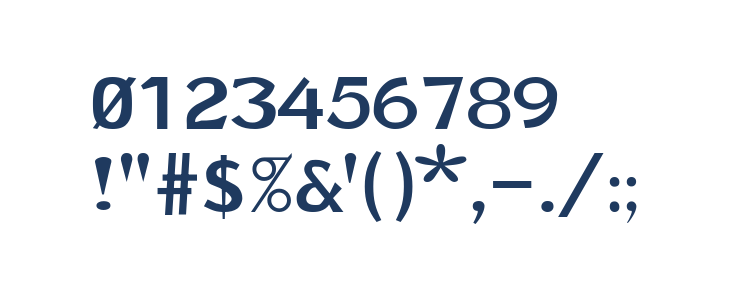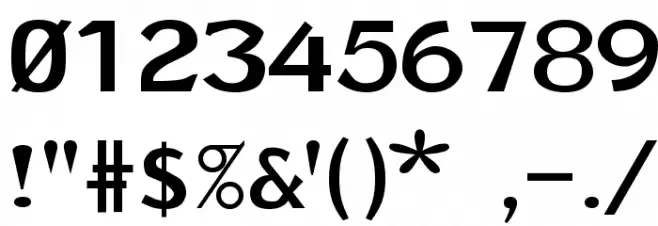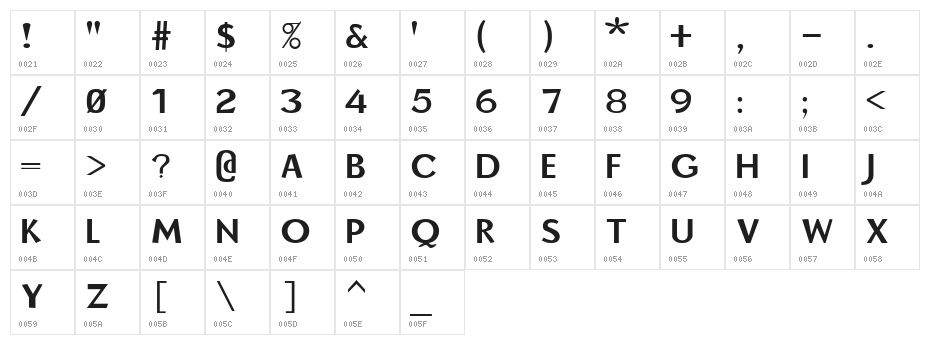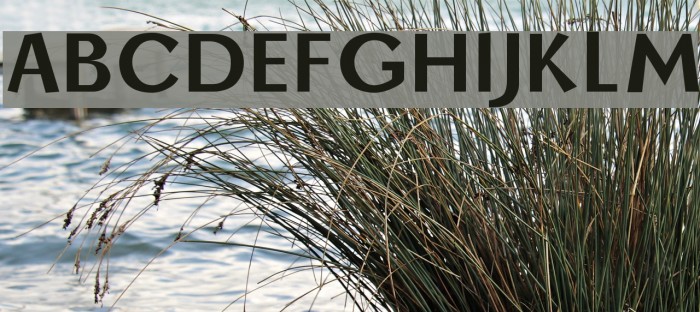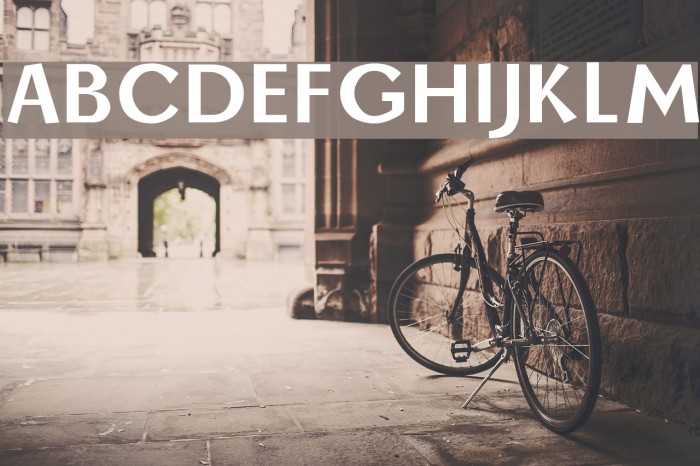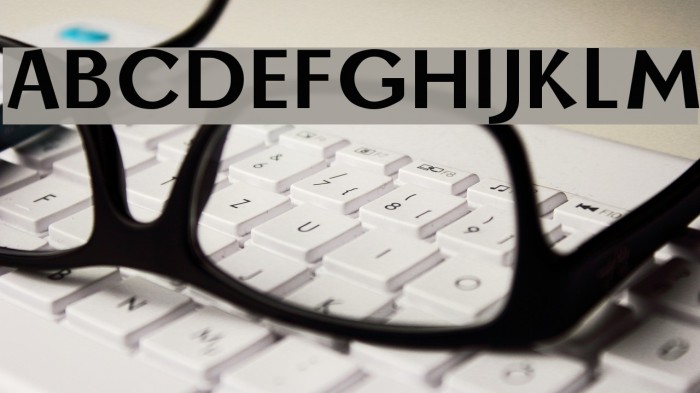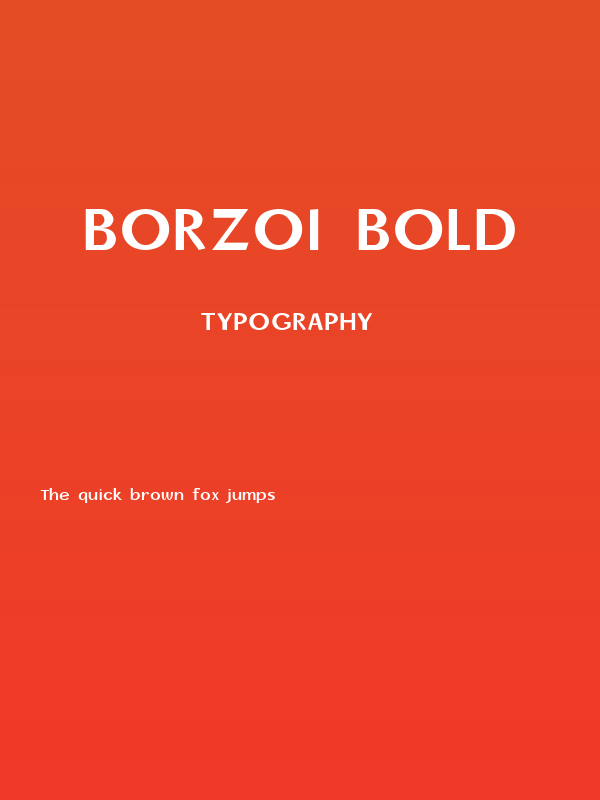
Borzoi Bold Font
Borzoi Bold Description
This font features a bold and assertive style, characterized by its clean and modern sans-serif design. The letters are well-proportioned with a slightly geometric feel, offering a strong visual impact. The uppercase letters are tall and commanding, while the lowercase letters maintain a consistent and harmonious flow. The numerals are clear and legible, making them suitable for various applications. The special characters are distinct and integrate seamlessly with the overall design. This font's boldness makes it ideal for attention-grabbing headlines and branding materials.
| Proposed Projects | Ideal for branding, advertising, headlines, and editorial design. |